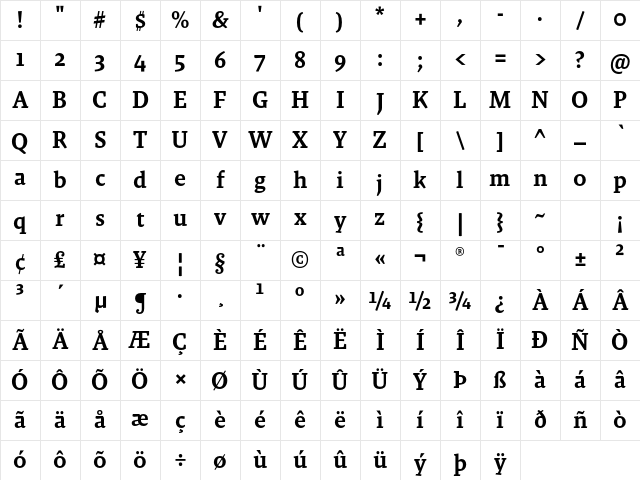
Malaga OT Med Free Font
Malaga OT Med
Style: Med
Foundry: Emigre Inc.
Designer: Xavier Dupre
Design Context for Malaga OT
Malaga OT is a composed and adaptable typeface that performs quietly and consistently across a wide range of design contexts.